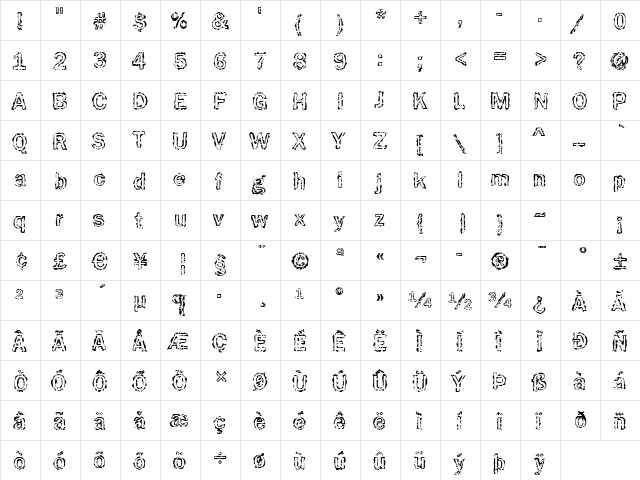
Funky31 Bold Font Preview
Funky31 Bold
Funky31 Bold Font Details
Design Context for Funky31 Typeface
Funky31 trades formality for fun, with bouncy, characterful letterforms that bring warmth and energy to any project.
Font Pairing: Pairs well with a rounded or humanist sans for body copy, maintaining the friendly tone without relying on Funky31 to carry extended reading.
Pro Tip: Use Funky31 at larger display sizes where its expressive character can land. Pair with a clean, simple sans for body copy to maintain readability.